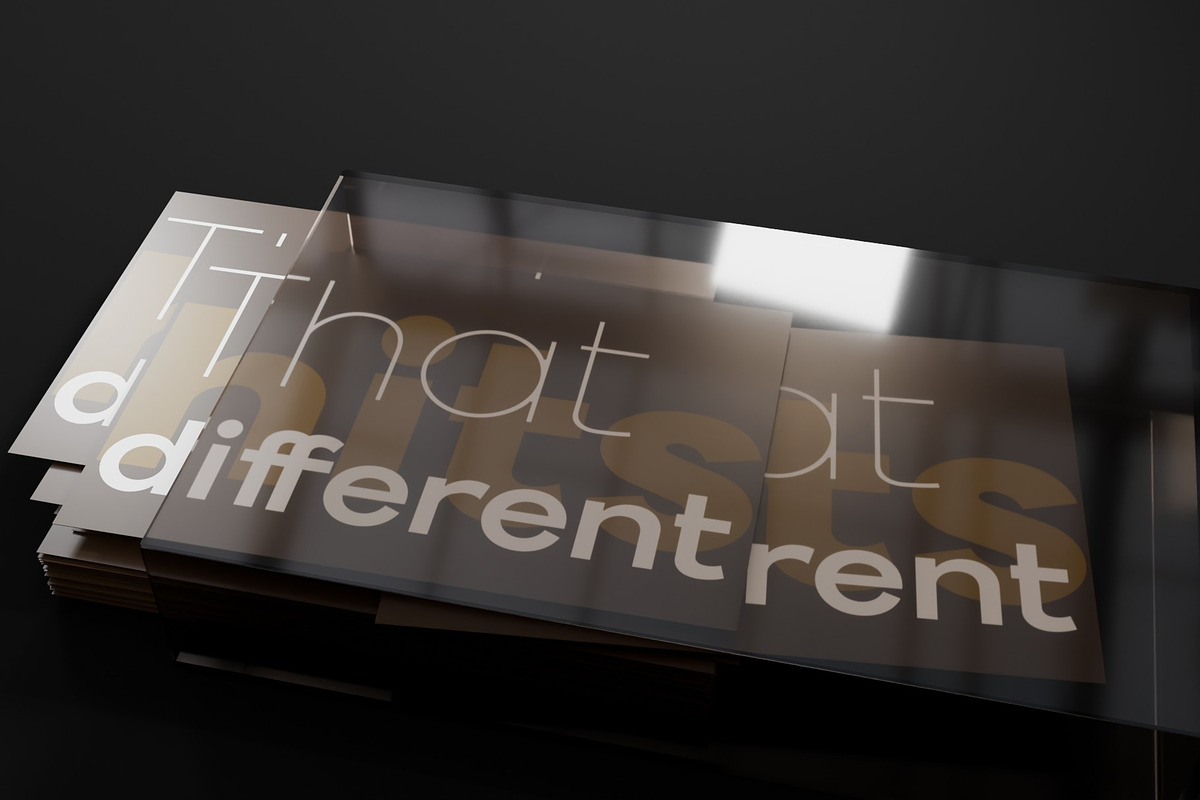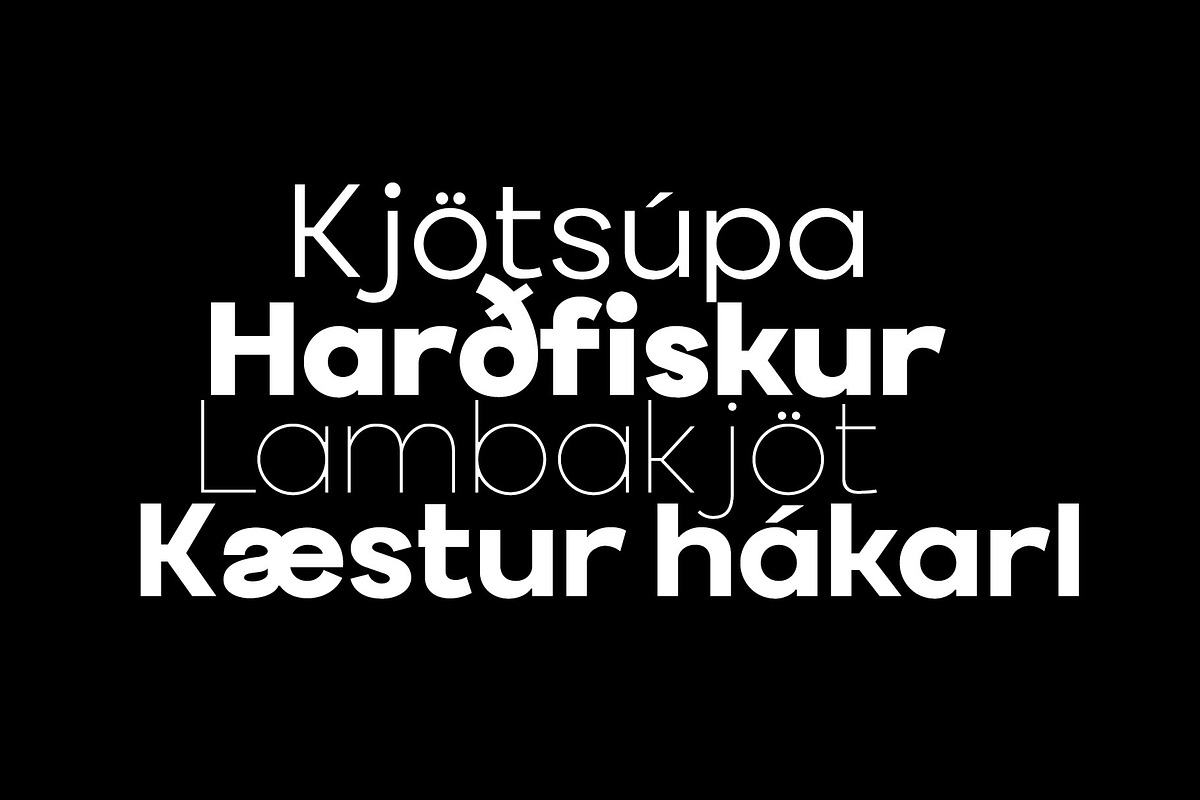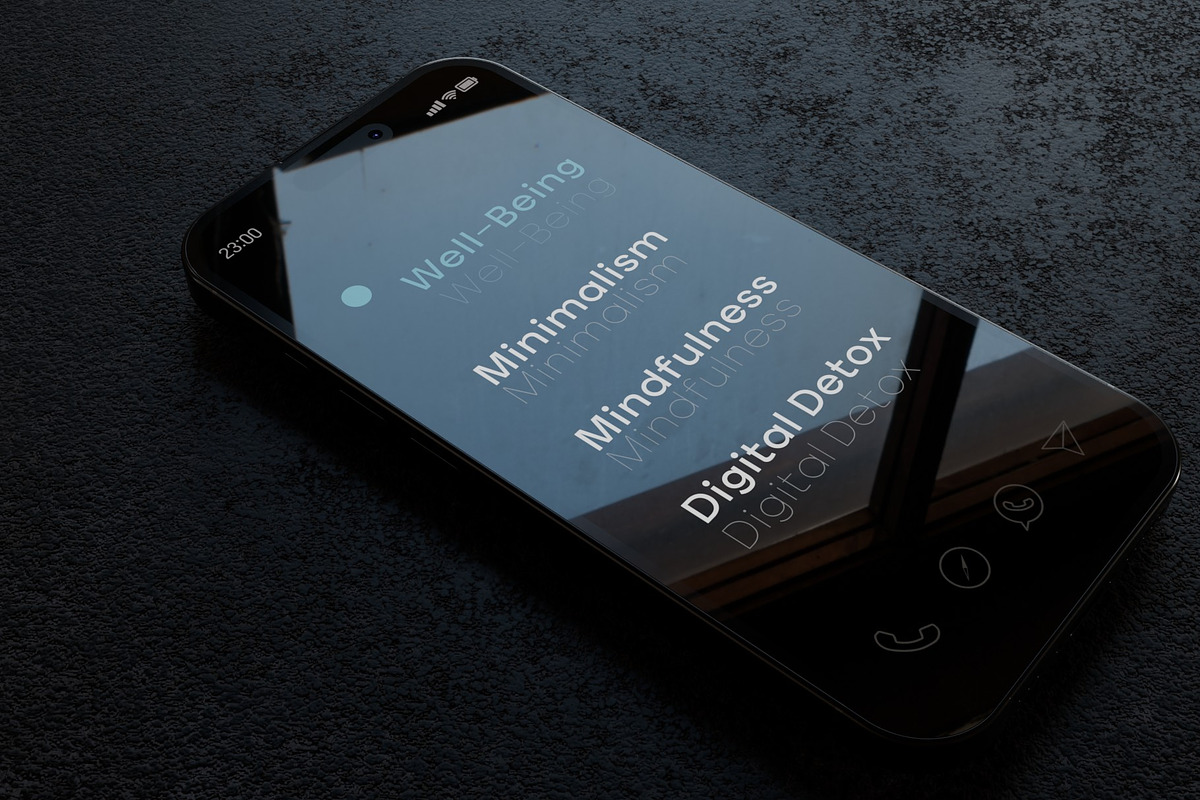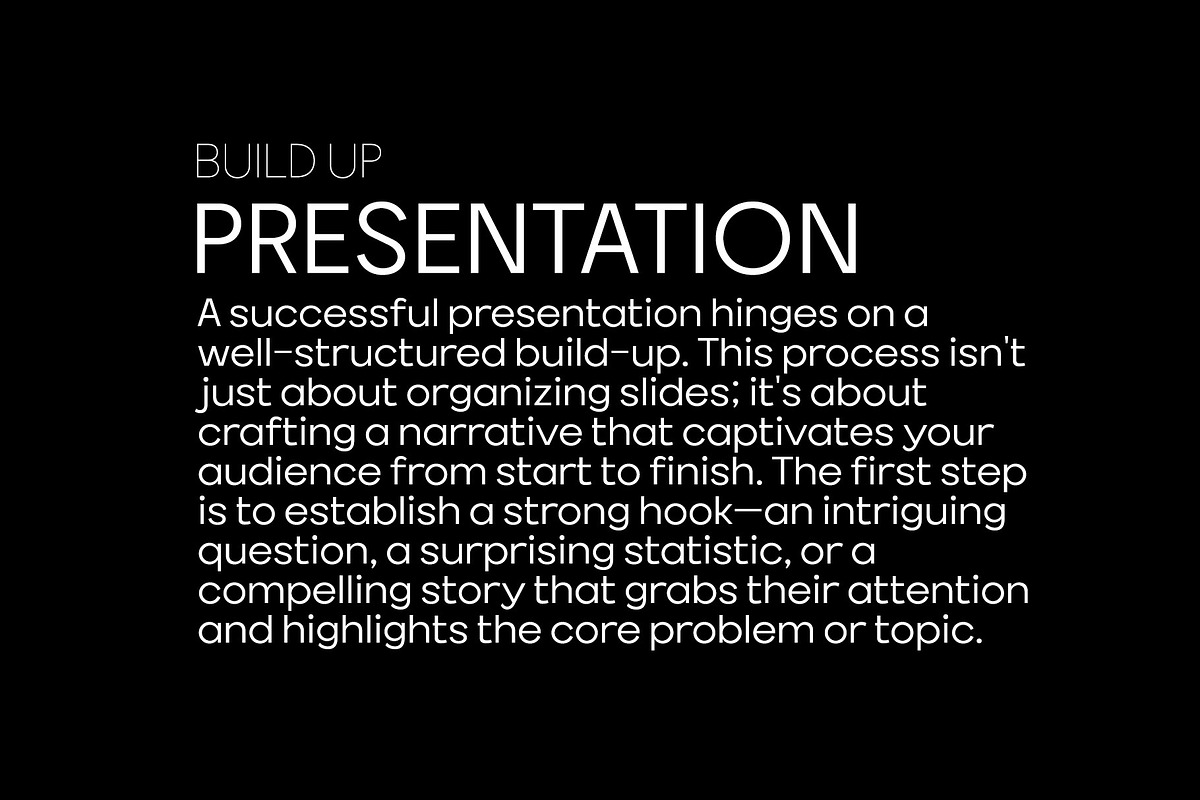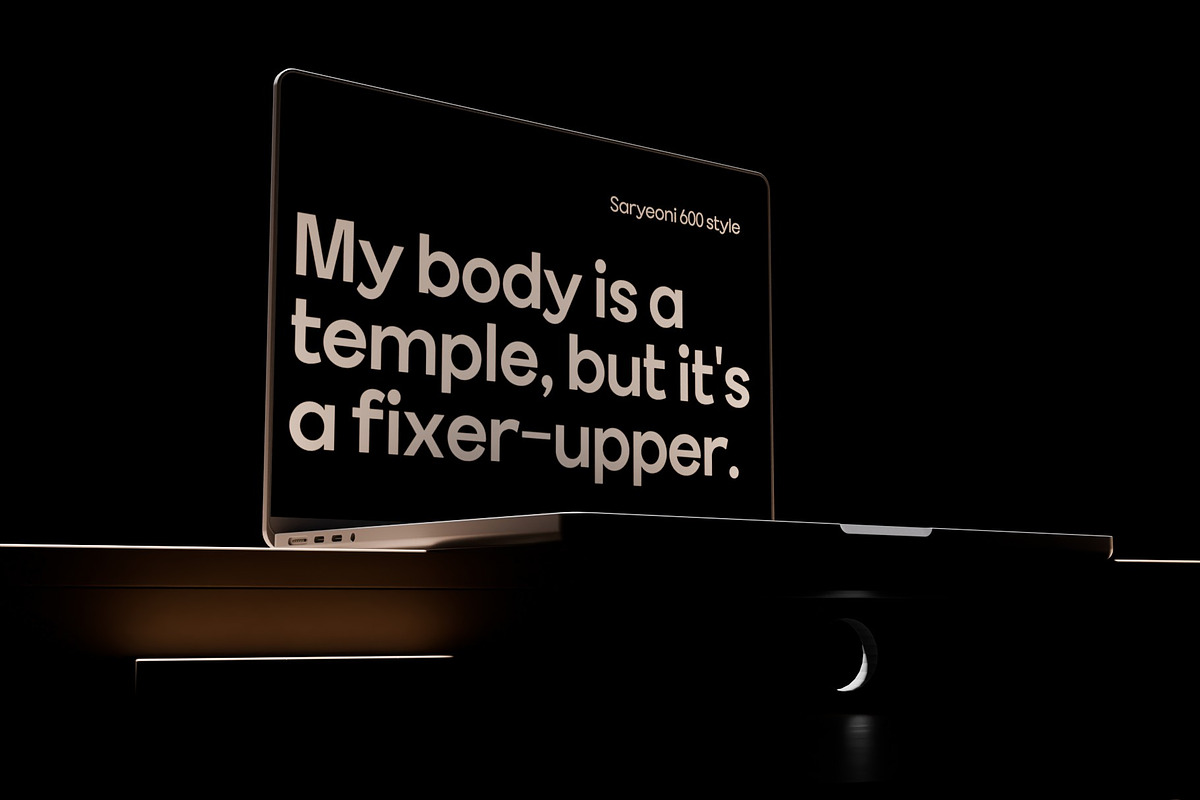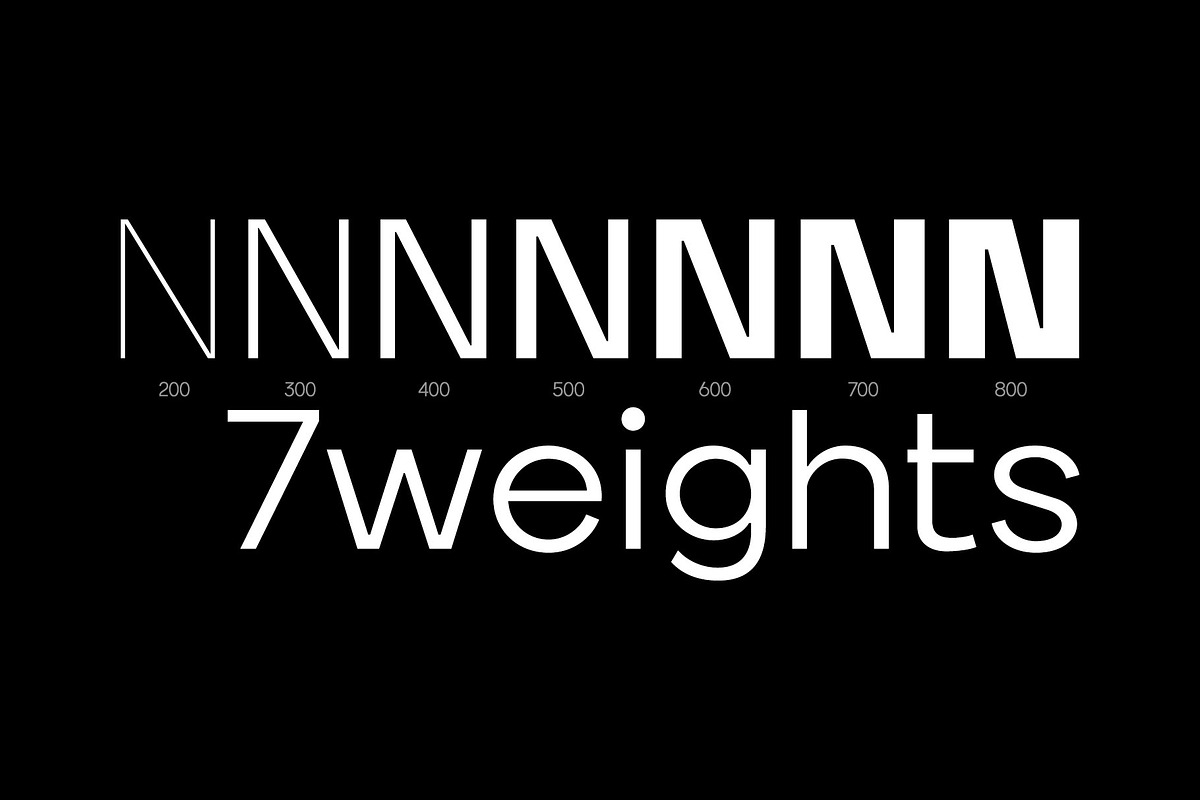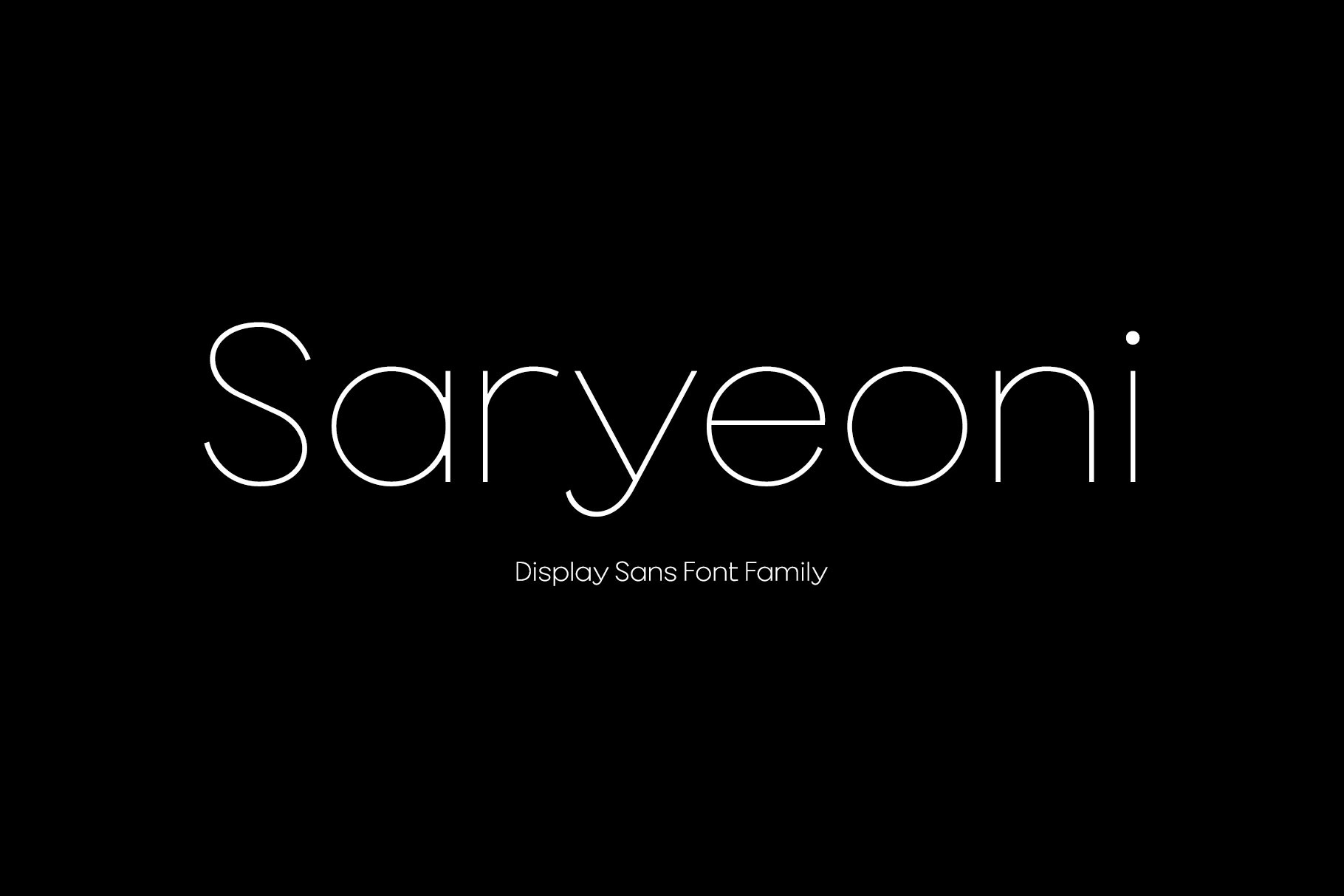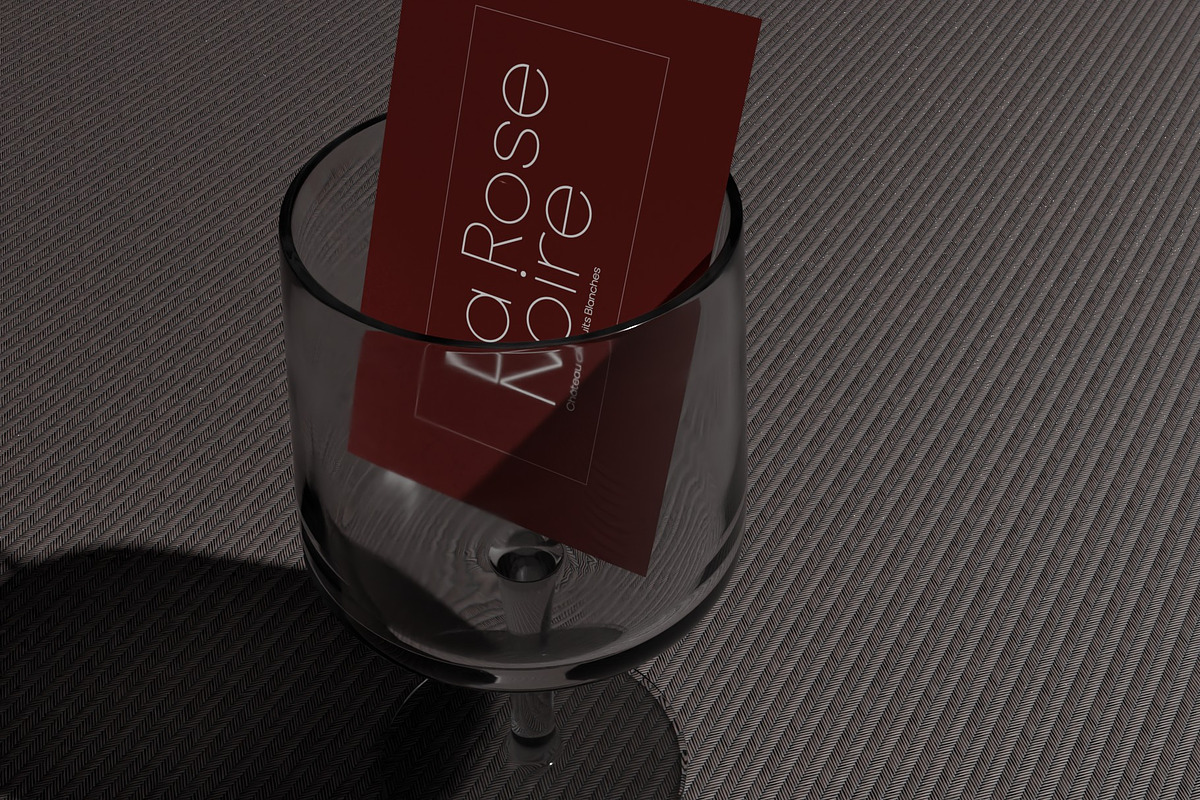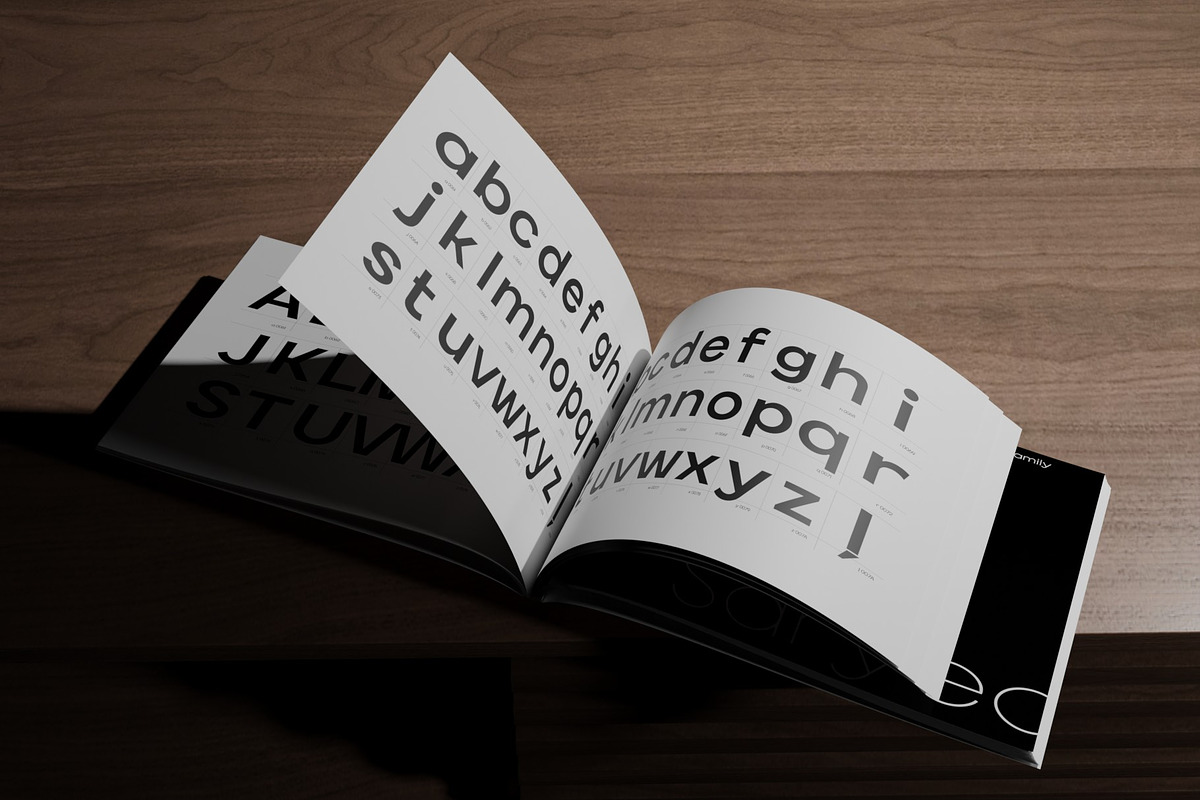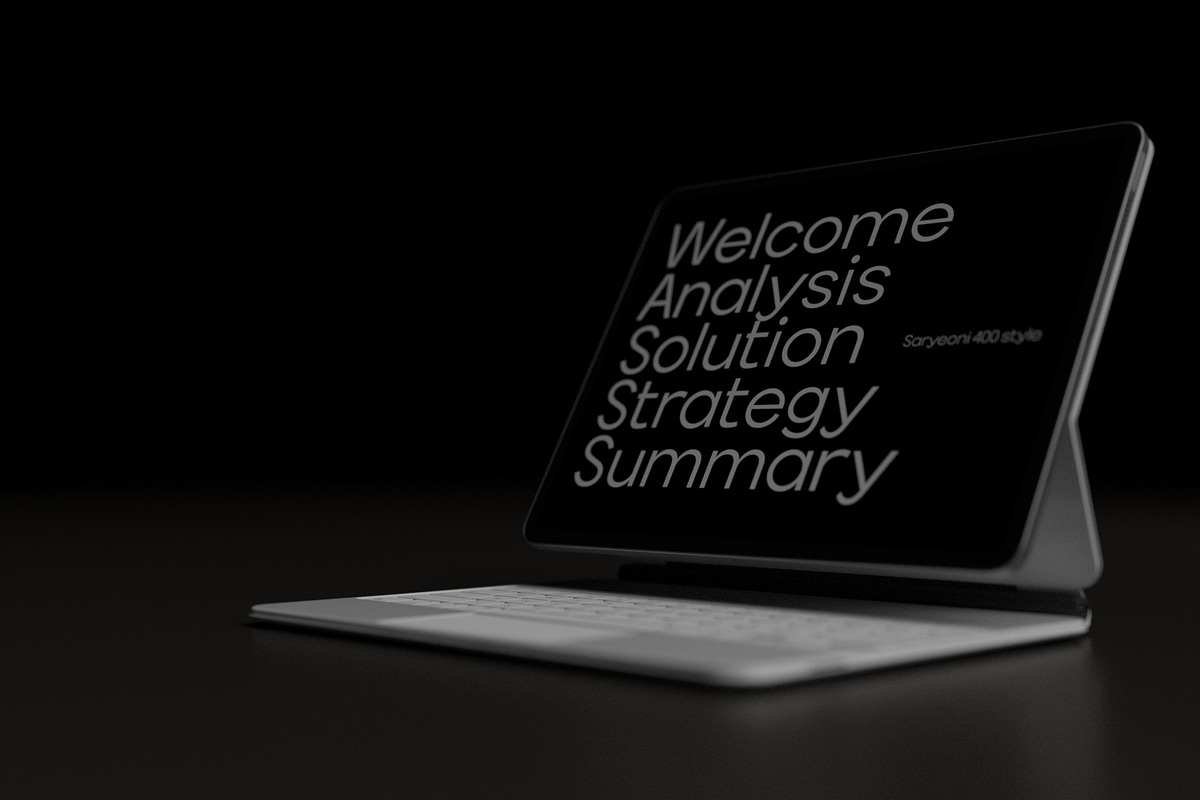
Saryeoni Sans Font Family
Saryeoni Sans Font Family.
Originally, Saryeoni means a mystical place where you can find healing through communion with nature. This is a font family designed to reflect the spiritual identity of Koreans.
A modern grotesque touch is added to the simple, restrained geometric structure. It can be used for a variety of purposes, from product and branding to video, publishing, and headlines and body text for various media. The arrangement of the Glyphs, highlighted with a consistent rhythm, will add a special charm to designers.
- Supported Languages: Western Europe, Central/Eastern Europe, Baltic, Turkish, Romanian
- 7 weights
- 577 glyphs